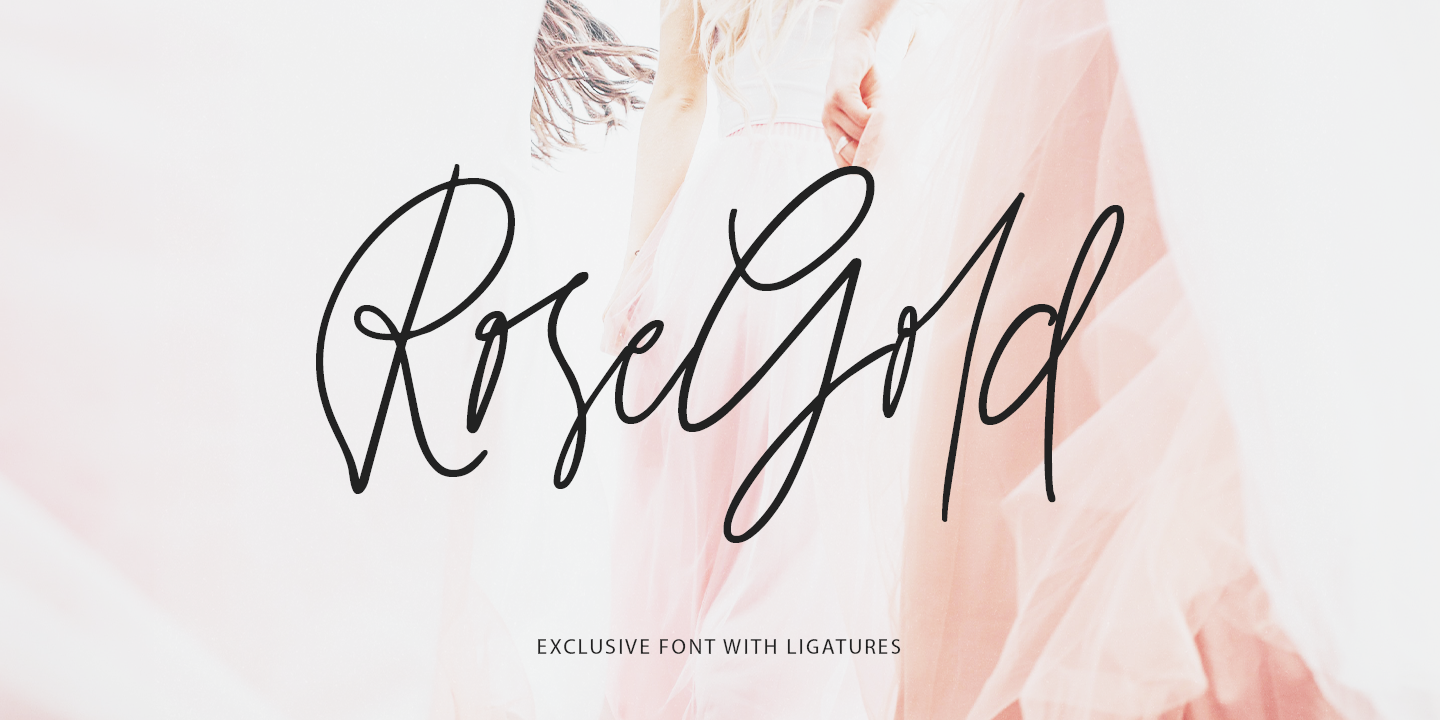
This luxurious typeface excels in various premium applications including jewelry brand identities, luxury cosmetic packaging, high-end fashion boutiques, wedding invitation suites, exclusive spa branding, champagne labels, millennial-targeted luxury goods, and sophisticated lifestyle blogs. The Rosegold Font radiates warmth and opulence with its elegantly crafted letterforms that shimmer with the perfect blend of pink undertones and golden sophistication.
What makes this font truly exciting is its ability to capture the coveted rosegold aesthetic through typography that feels both timelessly elegant and refreshingly contemporary. The exquisitely designed characters feature delicate contrast, refined curves, and metallic-inspired details that make every word gleam with understated luxury. Its distinctive personality combines feminine grace with universal appeal, creating typography that speaks to modern luxury consumers who appreciate subtle sophistication.
The Rosegold Font family includes metallically-inspired variations: Light, Regular, Medium, Bold, and Display weights, plus decorative alternates with flourished details. Each family member maintains the signature luxurious character while providing versatility for creating designs that range from minimally elegant to ornately glamorous.